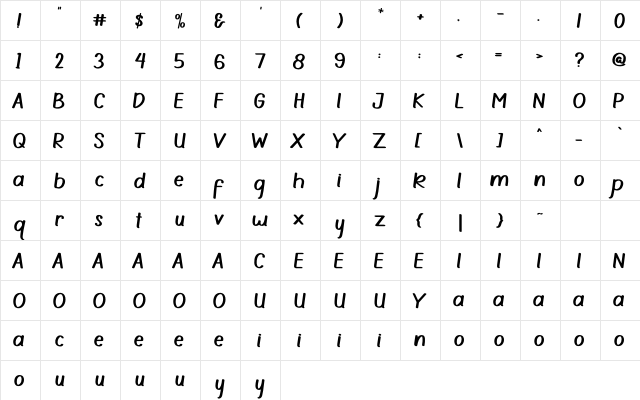
Ballpoint Regular
Design Context for Ballpoint Typeface
Ballpoint offers clean, dependable letterforms without strong stylistic allegiance, making it a practical choice for designers who need flexibility.
Pro Tip: Pair Ballpoint with a font of contrasting weight or personality to build a more expressive typographic hierarchy.